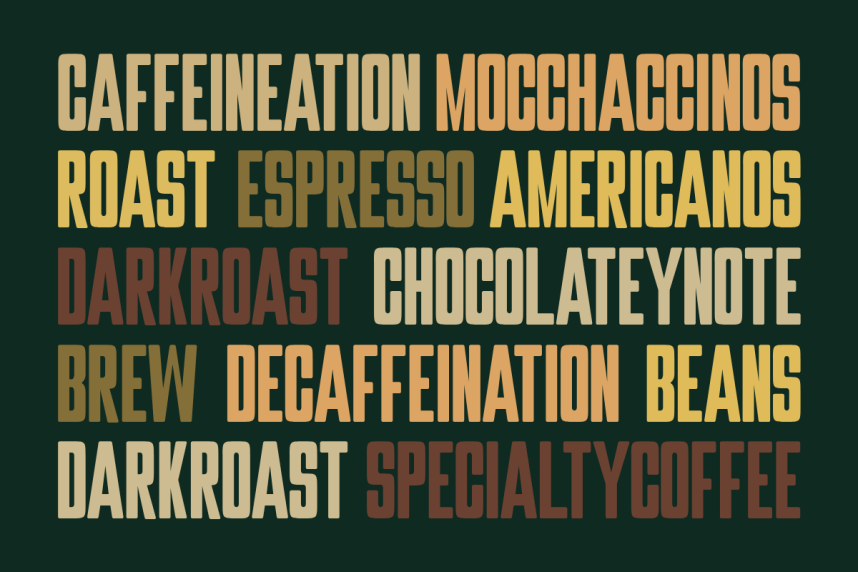
Barber Font – Make a bold, commanding, and delightfully nostalgic statement with Barber, an ultra-bold tall condensed retro sans serif font engineered for creators who want their headlines to pop with a solid, classic vintage charm. Meticulously structured with a heavy display weight, tall narrow baselines, and softly rounded corners, this versatile font brings an instant blend of masculine lifestyle warmth and clean modern commercial professionalism to any creative canvas.
Whether you are an apparel designer launching a fresh streetwear collection, a graphic artist establishing a bold grooming or lifestyle brand, or a high-volume print-on-demand seller optimizing listings for search engine conversions, Barber delivers unmatched readability and outstanding shelf appeal. For the crafting community and DIY enthusiasts, every single glyph has been technically polished and vector-optimized to ensure a smooth, effortless cutting and weeding experience on digital cutting machines like Cricut and Silhouette. Bring the powerful, compact, and timeless aesthetic of Barber into your commercial design toolkit today!